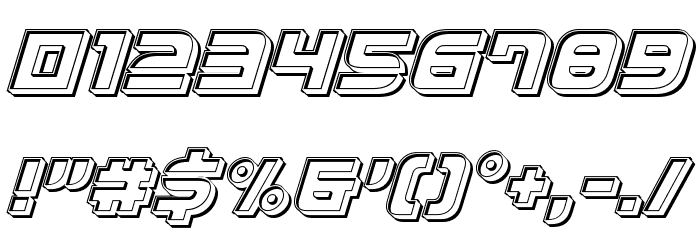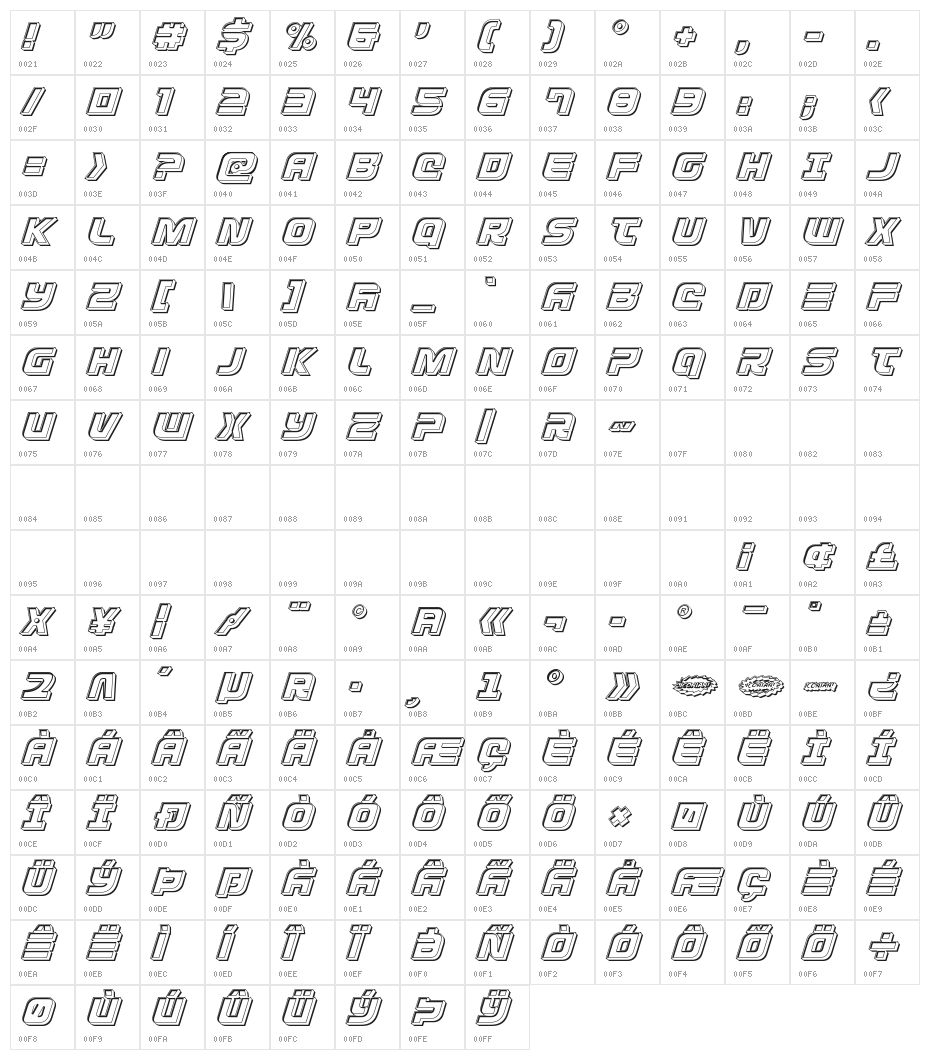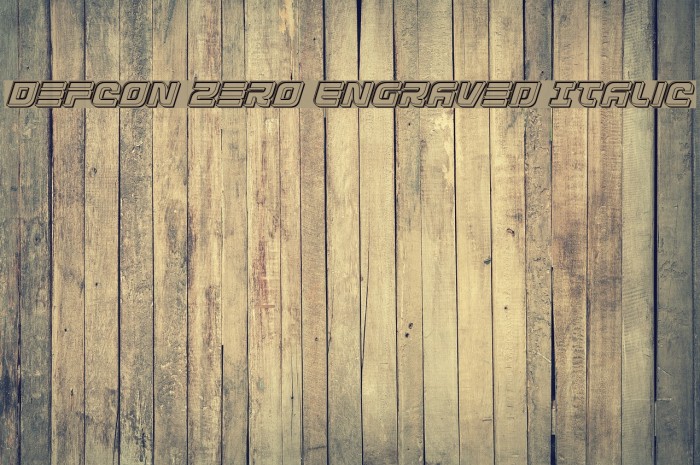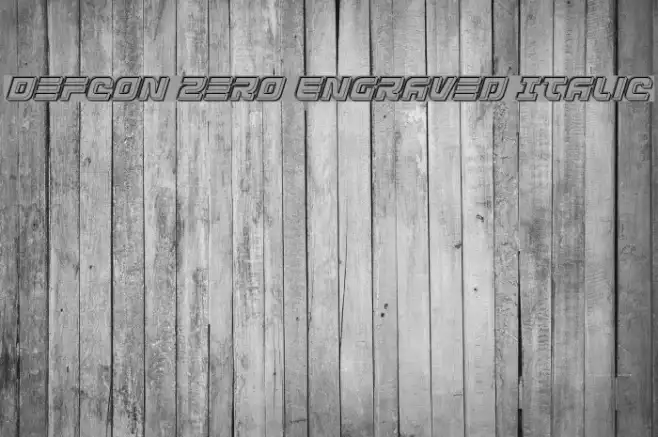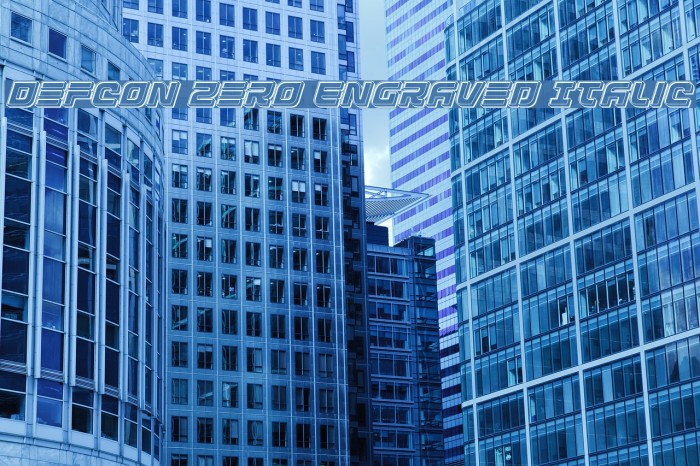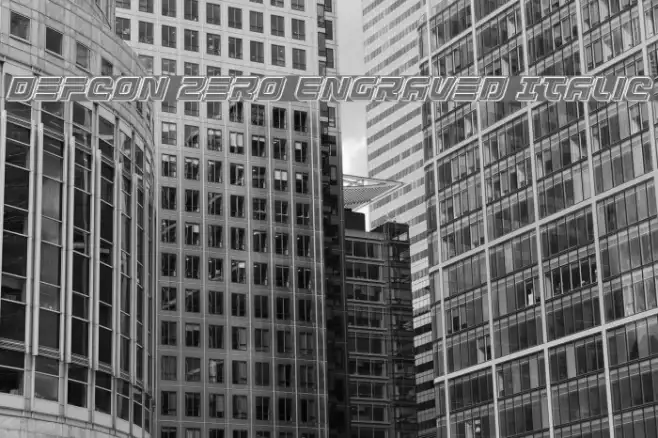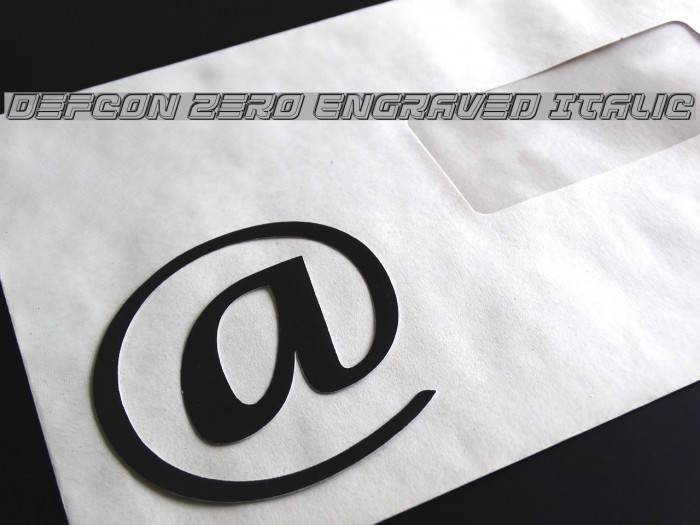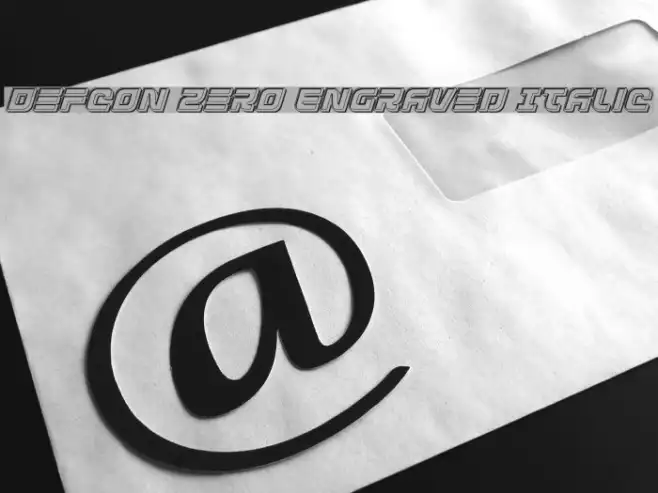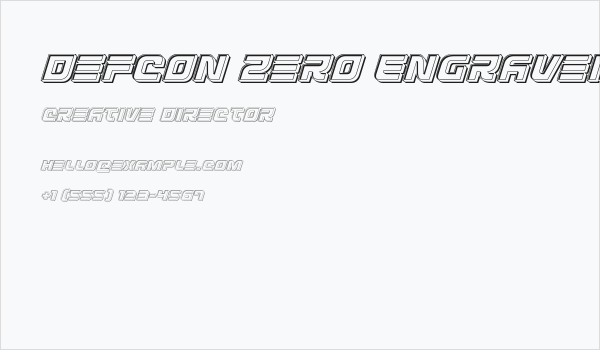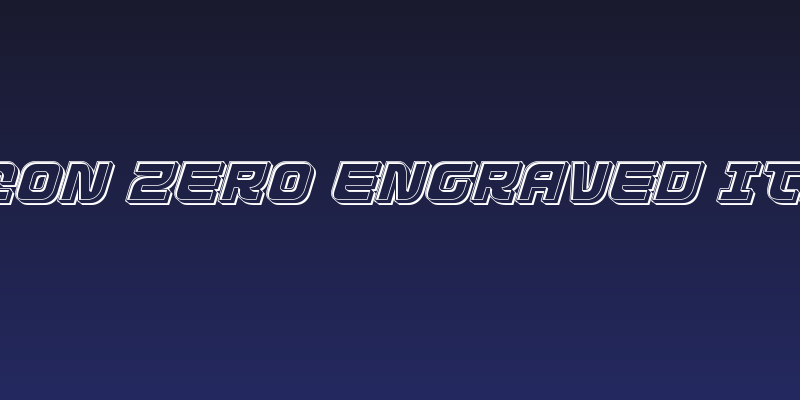
Defcon Zero Engraved Italic Font
Defcon Zero Engraved Italic Description
This font features a bold, futuristic design with an engraved, three-dimensional appearance. The letters are italicized, adding a dynamic and forward-leaning aspect to the overall style. Each character is outlined with a double line, creating a sense of depth and movement. The font is highly stylized, making it ideal for attention-grabbing headlines or logos. Its geometric shapes and sharp angles give it a modern and edgy feel, suitable for projects that require a strong visual impact. The numbers and special characters maintain the same bold and engraved style, ensuring consistency across all text elements.
| Overall Style | Futuristic, Dynamic |
| Proposed Projects | Ideal for sci-fi themed designs, video game titles, tech company logos, and futuristic posters. |